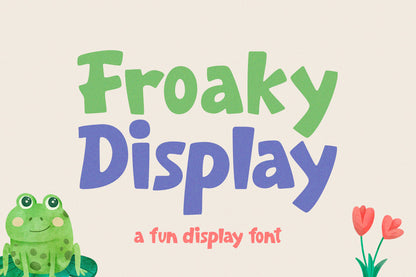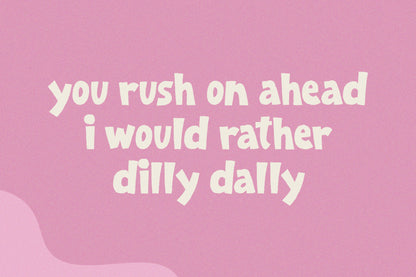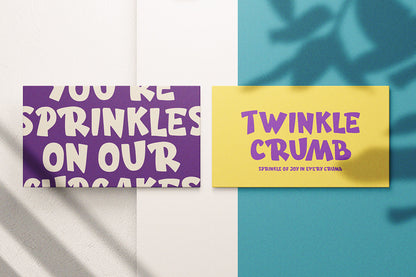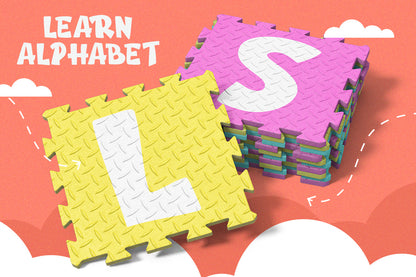
Froaky Fun Display Font
Ribbit-ribbit! Froaky hops into your designs with playful leaps and quirky charm! This fun-tastic font adds a splash of whimsy to every project—perfect for kids' illustrations, funky packaging, or ribbity-rad social media posts. Let Froaky croak some personality into your creations!
Features :
Uppercase & lowercase
Numbers and punctuation
Alternates & Ligatures
Multilingual Support